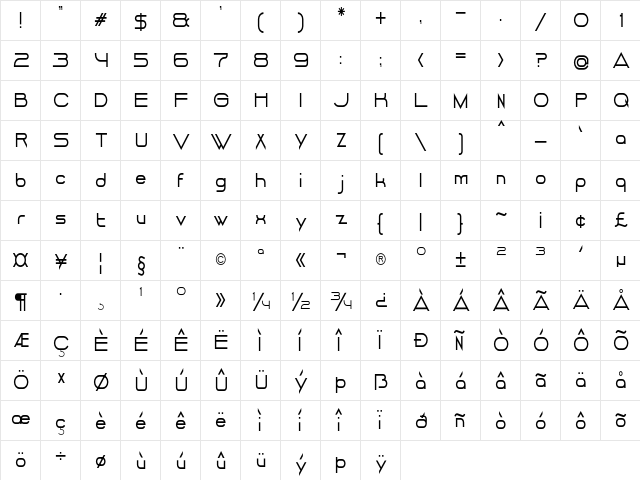
DANCING JUICE Regular
| Foundry | rimando nillo, jr. |
| Designer | dondon nillo |
Design Context for DANCING JUICE Typeface
DANCING JUICE offers clean, dependable letterforms without strong stylistic allegiance, making it a practical choice for designers who need flexibility.